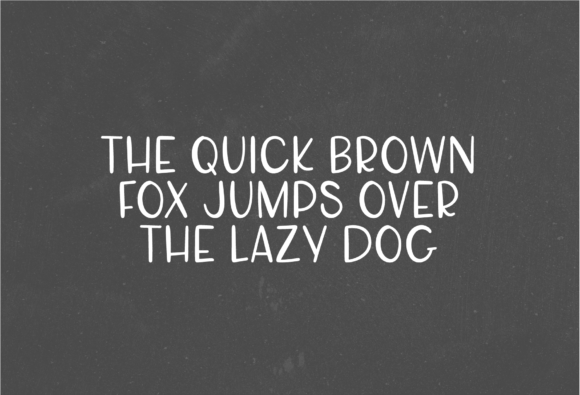
Farm Fresh Font
Farm Fresh is a rustic and simple script font that exudes a charming and welcoming feel. Its clean and elegant letters have a handmade quality that is perfect for branding, packaging, and designs that require a natural and organic touch.